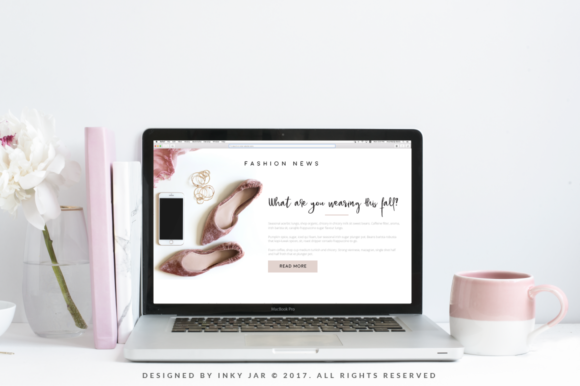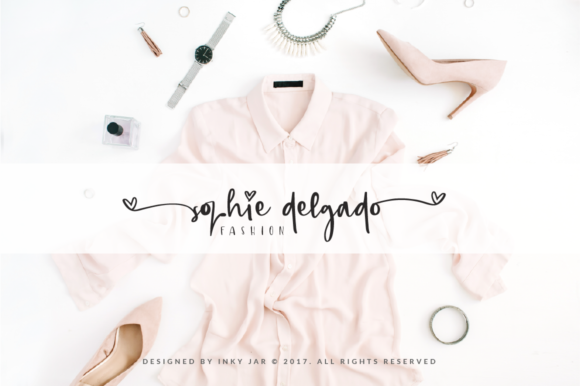
Gingerbread Duo Font
db-ku.com - Script & Handwritten -- The Gingerbread is a bouncy, hand lettered font duo with lots of swashes and illustrations. It has 2 additional sets of stylistic alternates of beginning and ending letterforms.